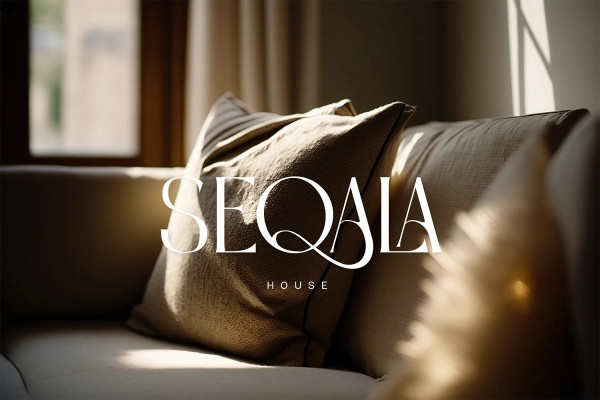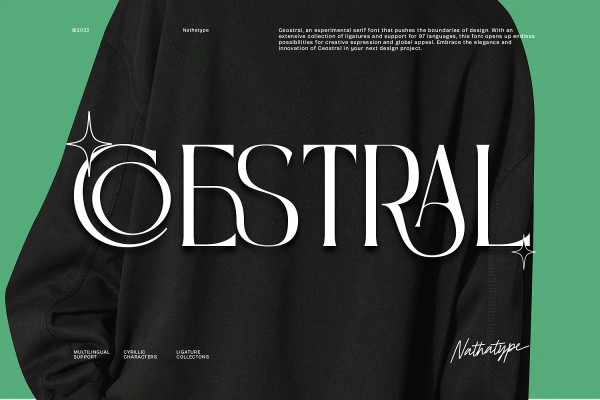
Coestral Font
Coestral Font is a captivating capital serif font designed with elegance and a touch of interconnected charm. Each letter is meticulously crafted to exude sophistication without being overly heavy, creating a harmonious and visually pleasing appearance. The capitalized letterforms of this font showcase clean lines and refined serifs, striking the perfect balance between elegance and readability.
The font’s moderate weight ensures a versatile and adaptable design, making it suitable for a wide range of creative projects. What sets Coestral Font apart is its subtle yet delightful feature of connected letters. Some letters are gracefully linked, creating a seamless and flowing look that adds a touch of uniqueness and artistic flair.
This interconnected style adds a sense of continuity and grace to the font, enhancing its overall elegance. On the other hand, its legibility and graceful appearance ensure that it makes a bold statement without overwhelming the viewer.